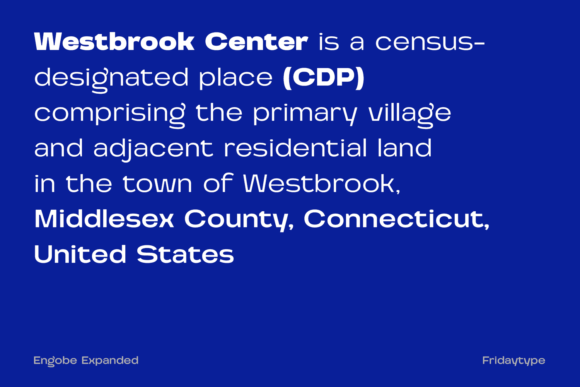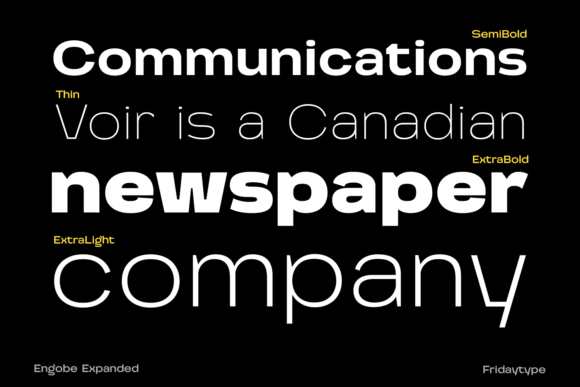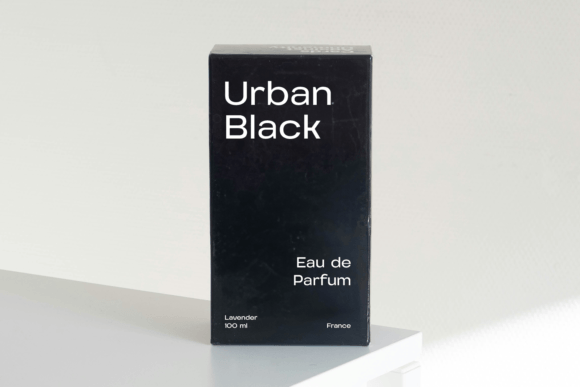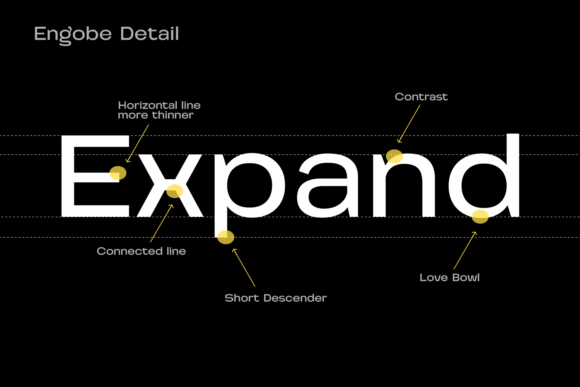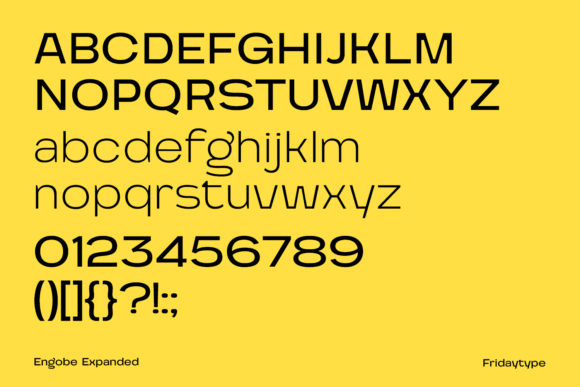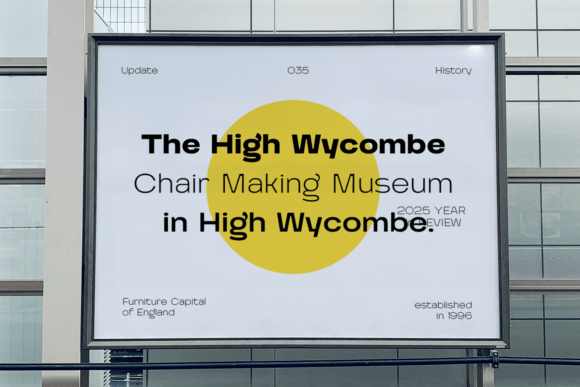
Introducing Engobe Font: Elevate Your Designs with a Unique and Modern Twist
In the world of typography, fonts play a crucial role in conveying the message and aesthetic of a design. For designers and crafters looking to add a distinctive touch to their projects, Engobe Font is an excellent choice. This versatile variable font brings a unique and modern twist to the table, making it perfect for a wide range of applications.
The Versatility of Engobe Font
Engobe is designed to be adaptable, offering a range of possibilities for designers. One of its standout features is its variable nature, allowing for easy adjustment of weight and width. This means that Engobe can seamlessly transition from bold, eye-catching headlines to delicate, readable body text. Whether you’re working on a logo, branding materials, posters, web design, or any other project, Engobe provides the flexibility needed to achieve your desired look.
Key Features of Engobe Font
- Variable Weight and Width: Easily adjust the font to suit your design requirements, from light and airy to bold and impactful.
- Distinctive Style: Engobe’s unique design sets it apart from more traditional fonts, giving your projects a modern edge.
- Wide Range of Applications: Suitable for logos, branding, posters, web design, and more, Engobe is a versatile addition to any design toolkit.
- High Readability: Despite its unique style, Engobe maintains high readability, making it suitable for both headlines and body text.
Using Engobe Font in Design Projects
Engobe’s adaptability makes it an excellent choice for various design applications. Here are a few ways you can incorporate Engobe into your projects:
Logos and Branding
For logos and branding materials, a distinctive font can make all the difference. Engobe’s unique style ensures that your brand stands out, conveying a modern and forward-thinking image. The ability to adjust the weight and width allows you to tailor the font to fit your brand’s personality, whether you’re aiming for something bold and assertive or subtle and elegant.
Posters and Print Design
When it comes to posters and print design, Engobe truly shines. Its variable nature means you can use it to create visual hierarchy, drawing attention to key messages while maintaining readability in the body text. The font’s modern twist adds a contemporary feel to any print material, making it perfect for flyers, brochures, and more.
Web Design
In web design, typography is crucial for both aesthetics and user experience. Engobe’s readability and adaptability make it an excellent choice for web projects. Use it for headings, subheadings, and even body text to create a cohesive and engaging user experience. The font’s performance on various devices and screen sizes ensures that your web design looks great everywhere.
Tips for Getting the Most Out of Engobe Font
To maximize the potential of Engobe, consider the following tips:
- Experiment with Weight and Width: Don’t be afraid to play around with the font’s variable features to find the perfect balance for your design.
- Pair with Complementary Fonts: While Engobe is versatile, pairing it with complementary fonts can add depth and interest to your designs.
- Consider the Context: Think about where and how your design will be used, and adjust the font accordingly to ensure maximum impact and readability.
Engobe Font offers a unique combination of versatility, modern style, and readability, making it an excellent addition to any designer’s toolkit. Whether you’re working on a branding project, creating print materials, or designing for the web, Engobe provides the flexibility and distinctive aesthetic needed to elevate your designs. By incorporating Engobe into your projects, you can ensure that your work stands out in a crowded design landscape.